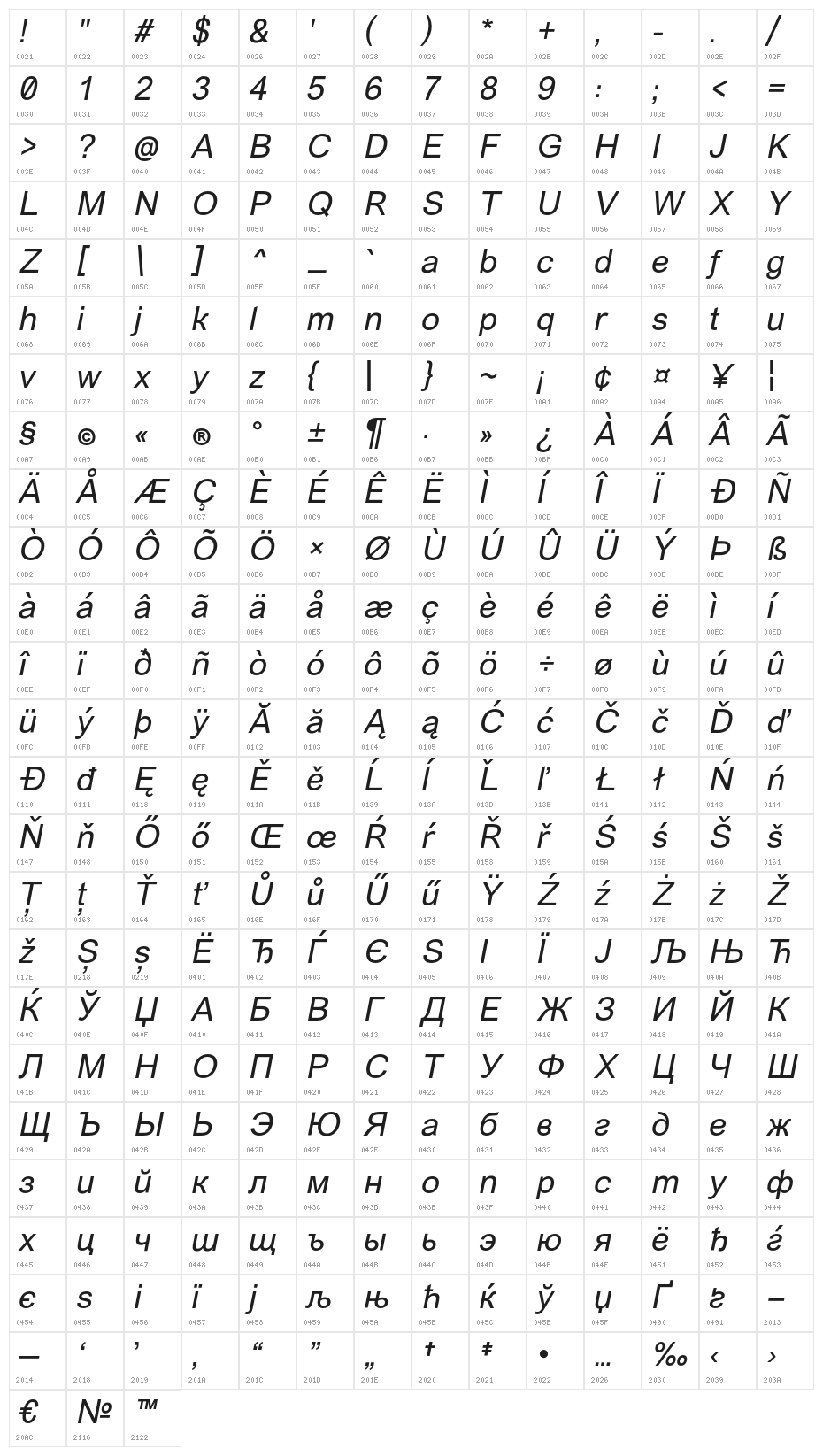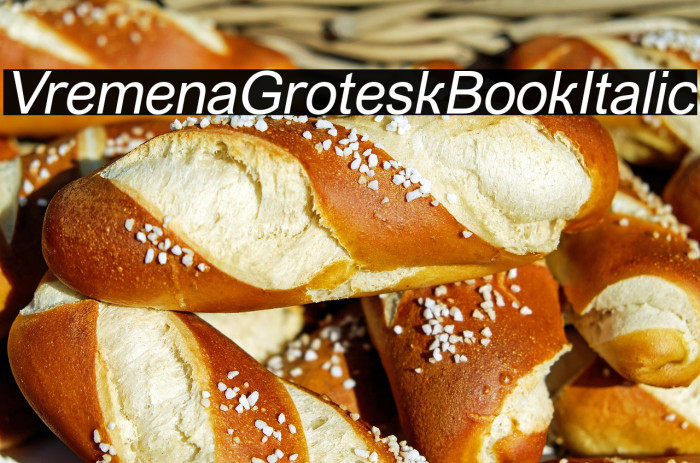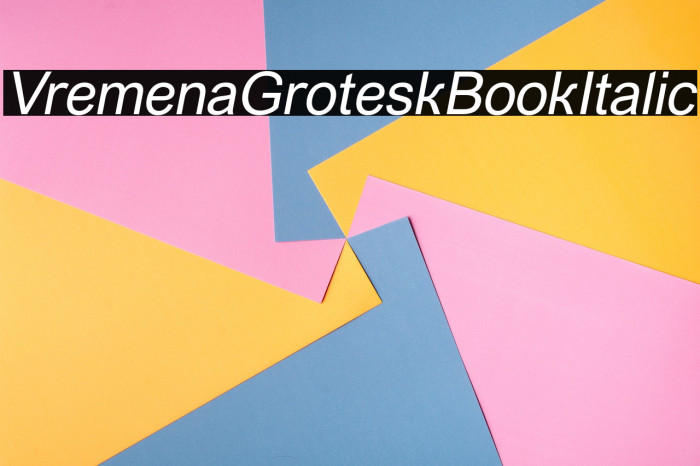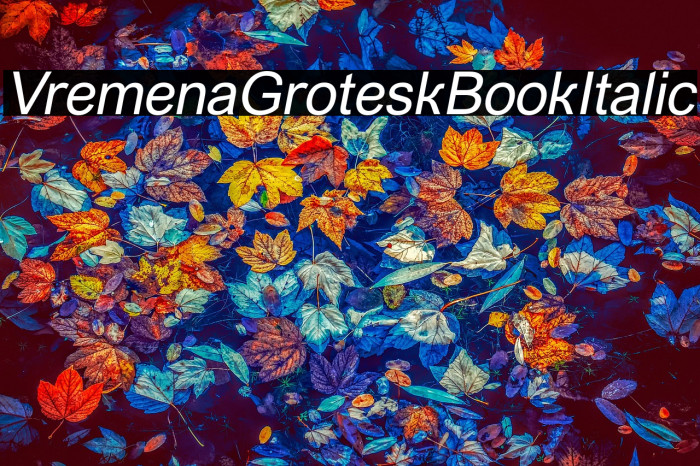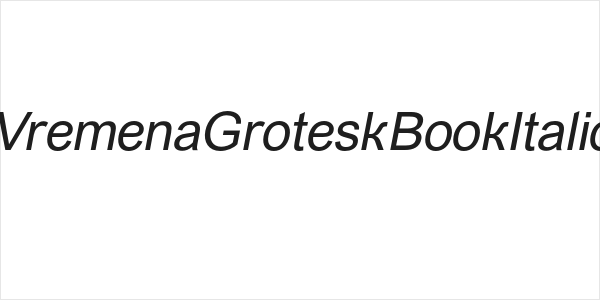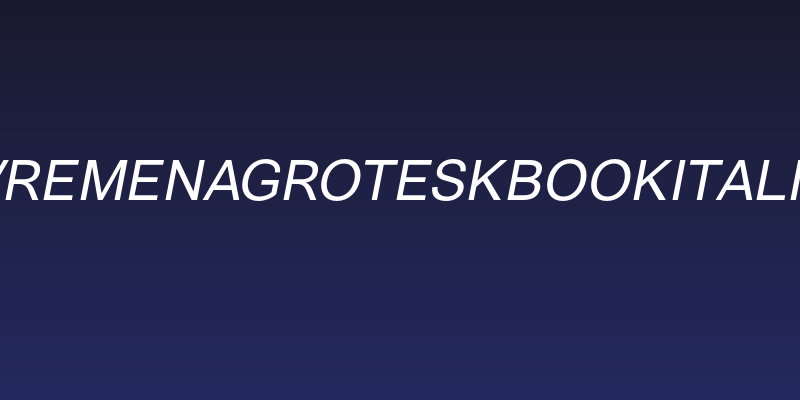
VremenaGroteskBookItalic Font
VremenaGroteskBookItalic Description
This font features a clean and modern sans-serif design with a slight italic slant, giving it a dynamic and contemporary feel. The characters are well-proportioned, with a consistent stroke width that provides a uniform appearance across both uppercase and lowercase letters. The numerals are clear and easily distinguishable, making them suitable for various applications. Special characters are included, maintaining the font's sleek and professional look. The overall style is versatile, making it suitable for both digital and print media.